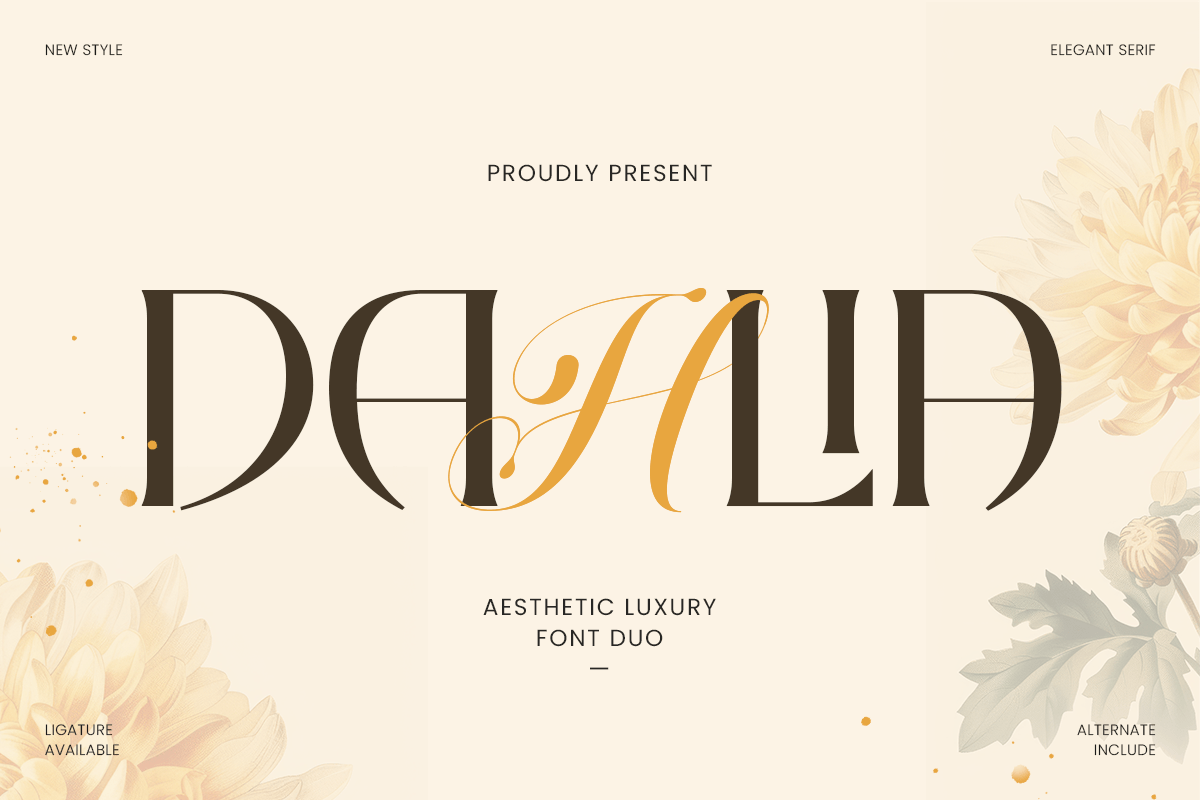
Dahlia
-Aesthetic Luxury Font Duo
Dahlia - Aesthetic Luxury Font Duo
DAHLIA is an aesthetic luxury font duo pairing a graceful script with an elegant serif—crafted to create a premium, romantic, and fashion-forward identity. The contrast between the expressive script and the refined serif gives your typography a complete branding toolkit: soft signature charm meets timeless sophistication.
Designed for elevated design systems, DAHLIA works beautifully across logos, wordmarks, wedding stationery, premium packaging, labels, website headers, lookbooks, editorials, social media campaigns, and modern marketing layouts. Use the script for standout signatures and feminine accents, then balance it with the serif for clean readability and high-end structure.
Whether you’re creating a beauty brand, boutique identity, luxury product line, or elegant wedding concept, DAHLIA delivers a cohesive duo that makes every layout feel curated, stylish, and unmistakably premium.
Inspiration Behind DAHLIA
DAHLIA is inspired by modern luxury aesthetics—where delicate script signatures and editorial serif typography combine to create timeless elegance. The design focuses on romantic balance, refined contrast, and brand-ready harmony to support premium identities with a soft, sophisticated, and aesthetic finish.
DAHLIA Font Features:
• Luxury font duo: elegant script + refined serif companion
• Script adds signature charm; serif adds structure and readability